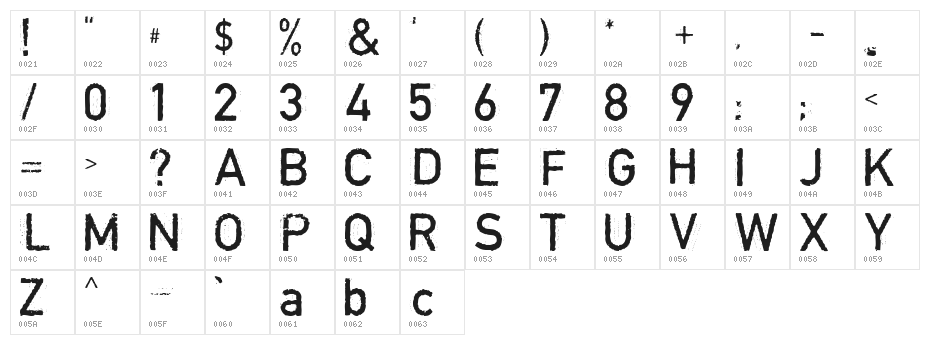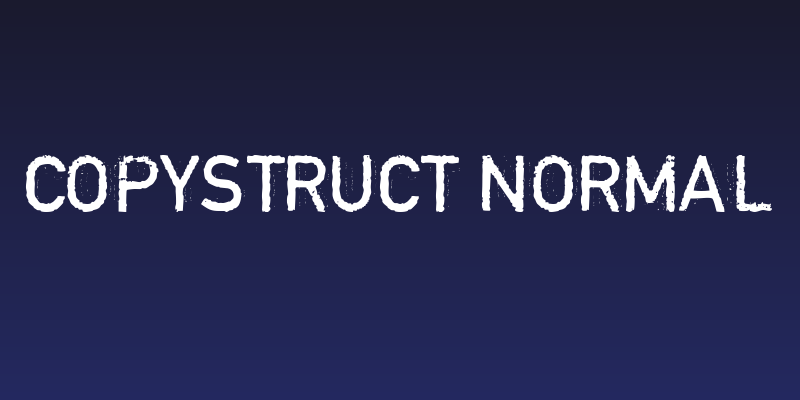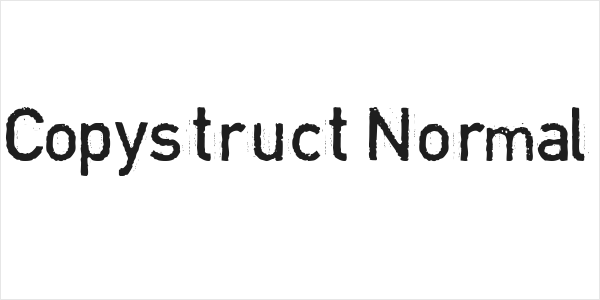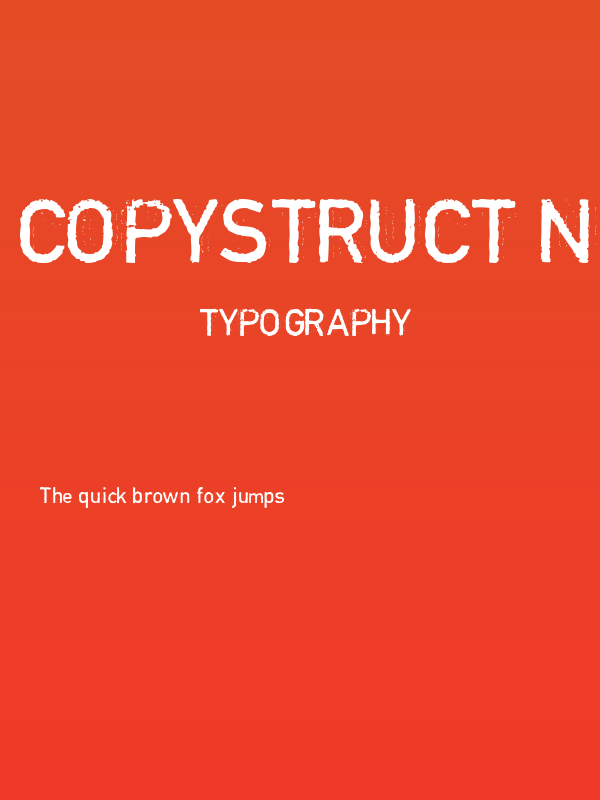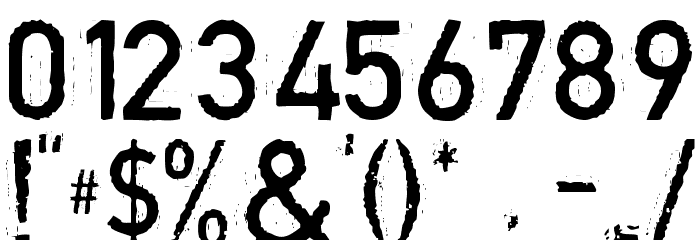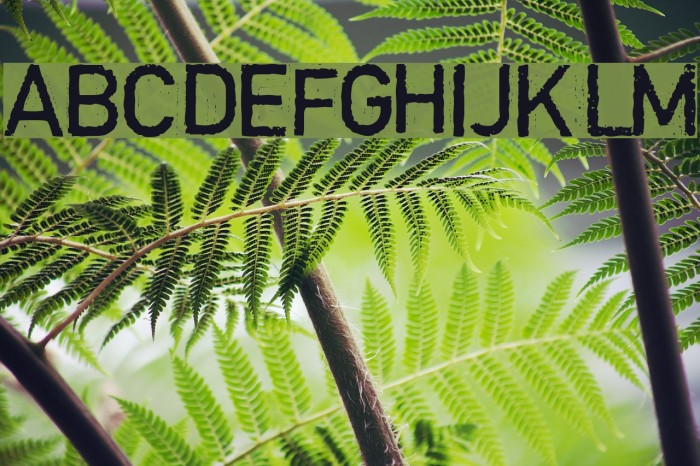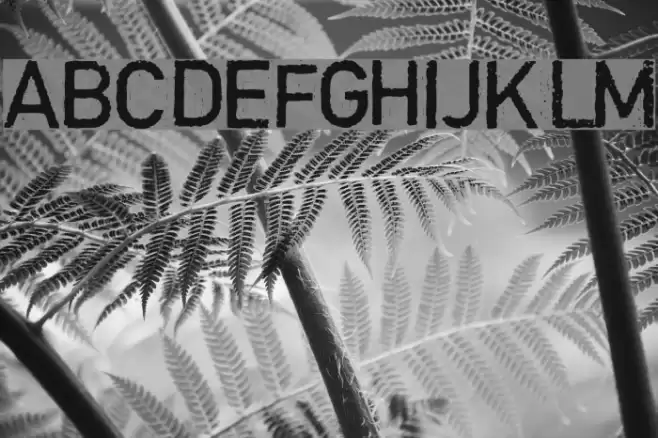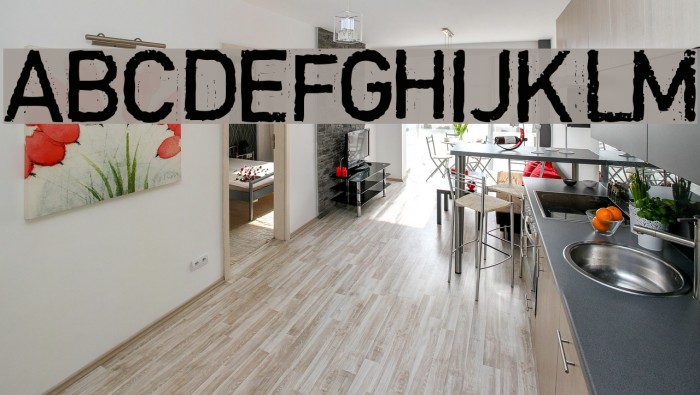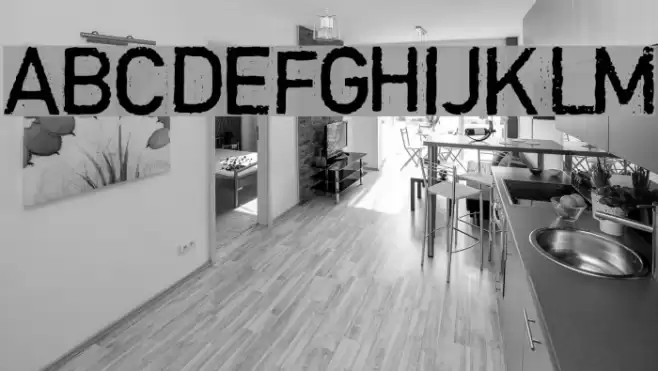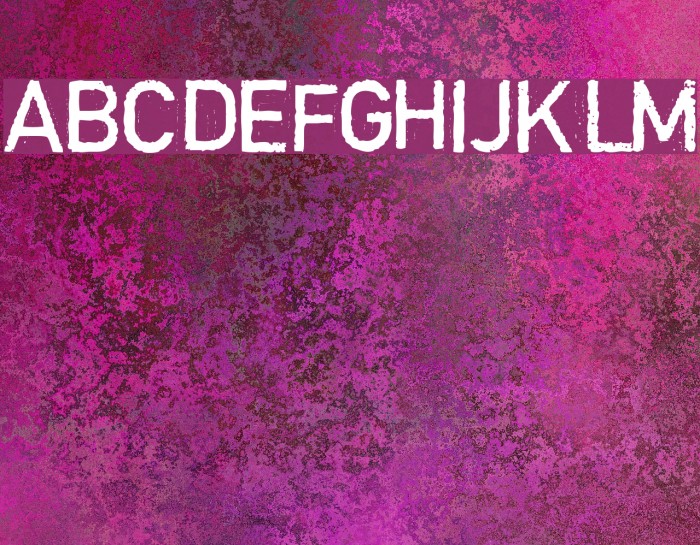
Copystruct Normal Font
Copystruct Normal Description
This font exhibits a rugged, distressed appearance with a textured finish that gives it a vintage, worn-out look. The characters are bold and slightly irregular, contributing to its handcrafted feel. The uppercase and lowercase letters maintain a consistent style, with rounded edges and a subtle roughness that adds character. The numerals and special characters follow the same design, ensuring uniformity across all glyphs. This font is ideal for projects that require a rustic or industrial aesthetic, such as posters, branding, or packaging designs.
| Overall Style | Vintage |
| Proposed Projects | Ideal for posters, branding, packaging designs, and any project needing a rustic or industrial look. |